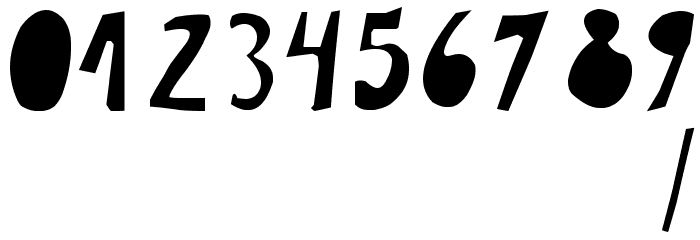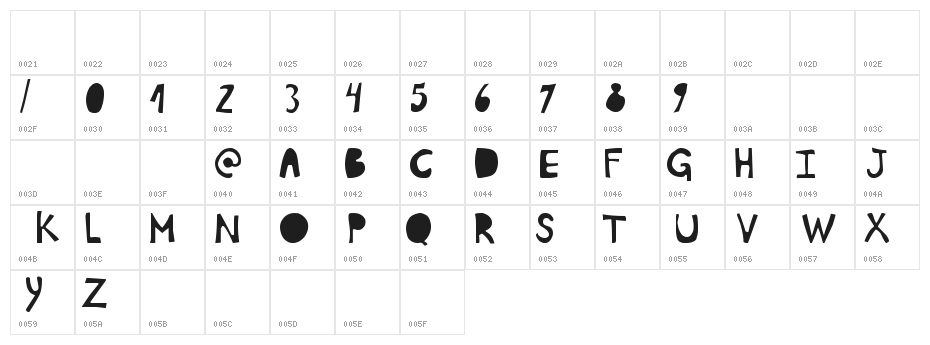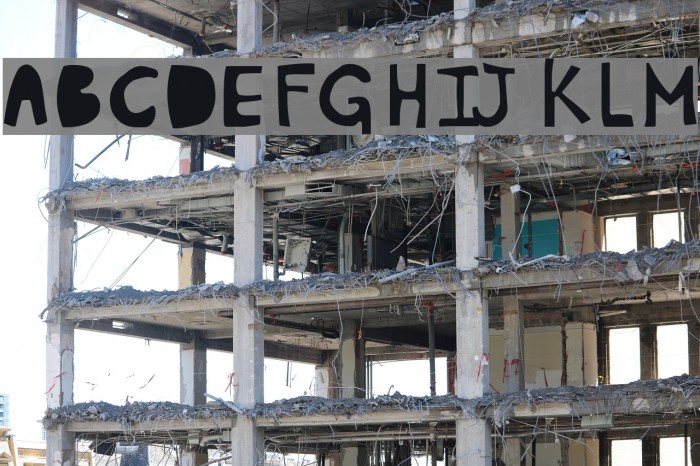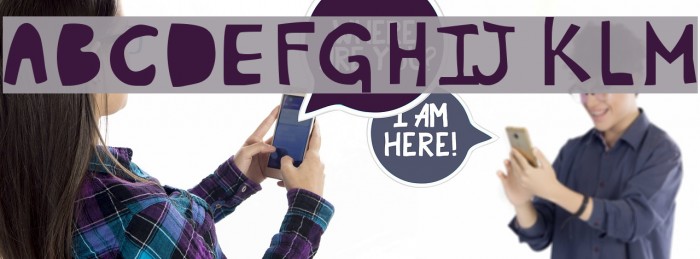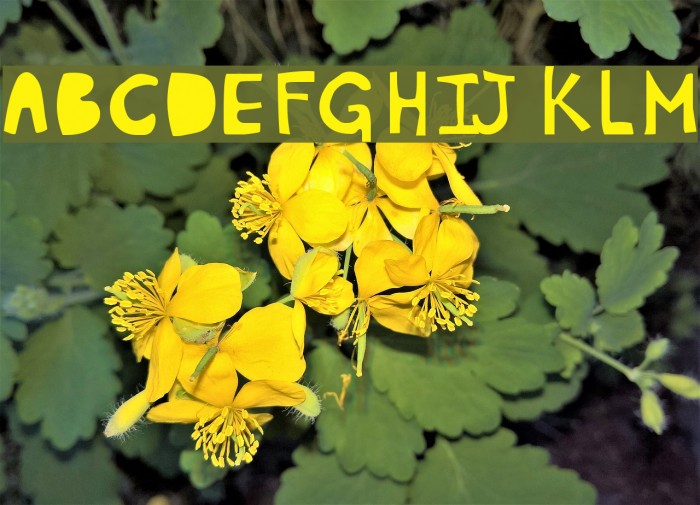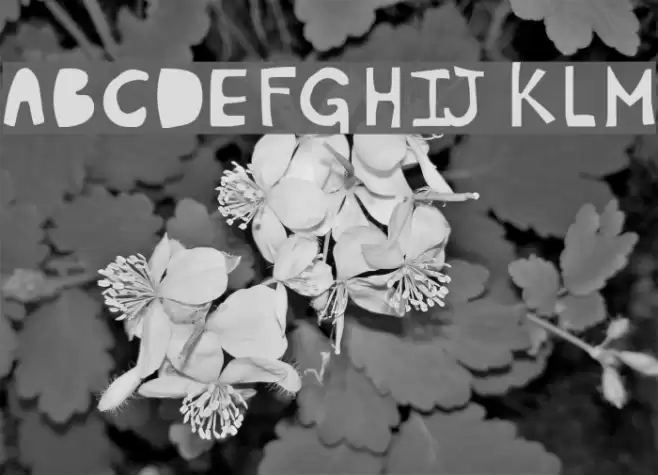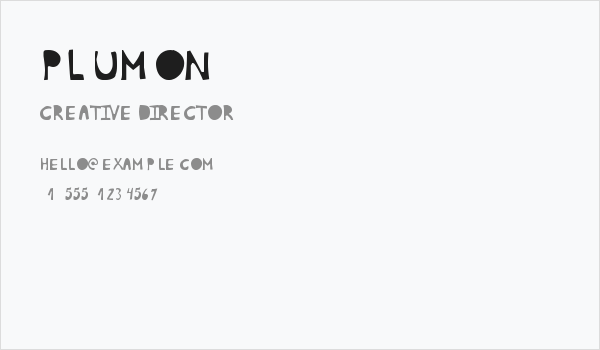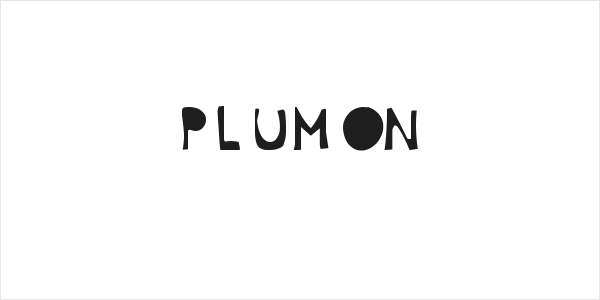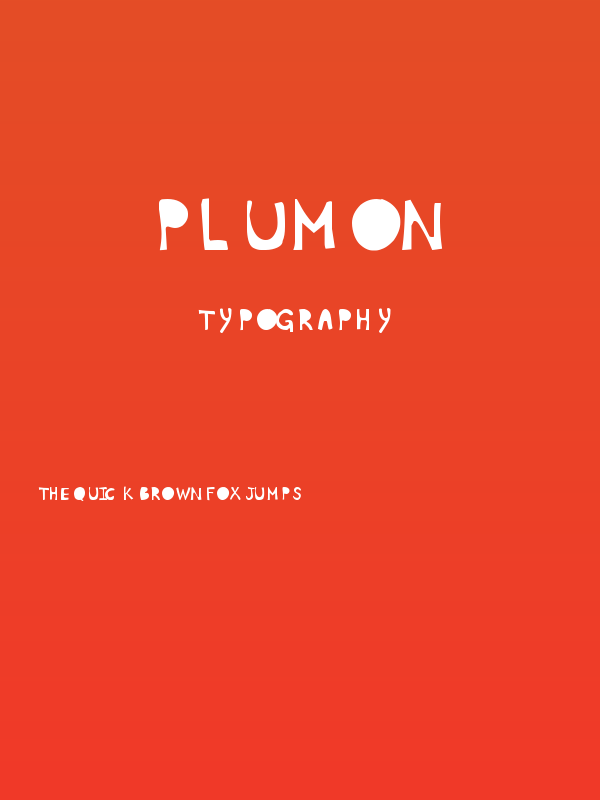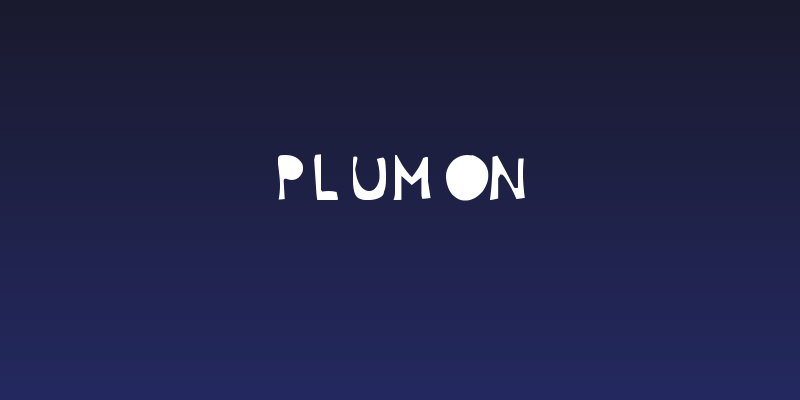
Plumon Font
Plumon Description
This font features a playful and whimsical design, characterized by its irregular and bold letterforms. Each character has a unique, hand-drawn appearance, with varying stroke thicknesses that add to its quirky charm. The letters are slightly tilted and uneven, giving the font a dynamic and lively feel. The numbers and special characters maintain this playful style, making it suitable for creative and informal projects. Its distinctiveness makes it stand out, perfect for capturing attention in headlines or artistic designs.
| Use Case | Headlines, Artistic designs, Creative projects |
| Proposed Projects | Ideal for children's books, playful branding, creative posters, and artistic invitations. |